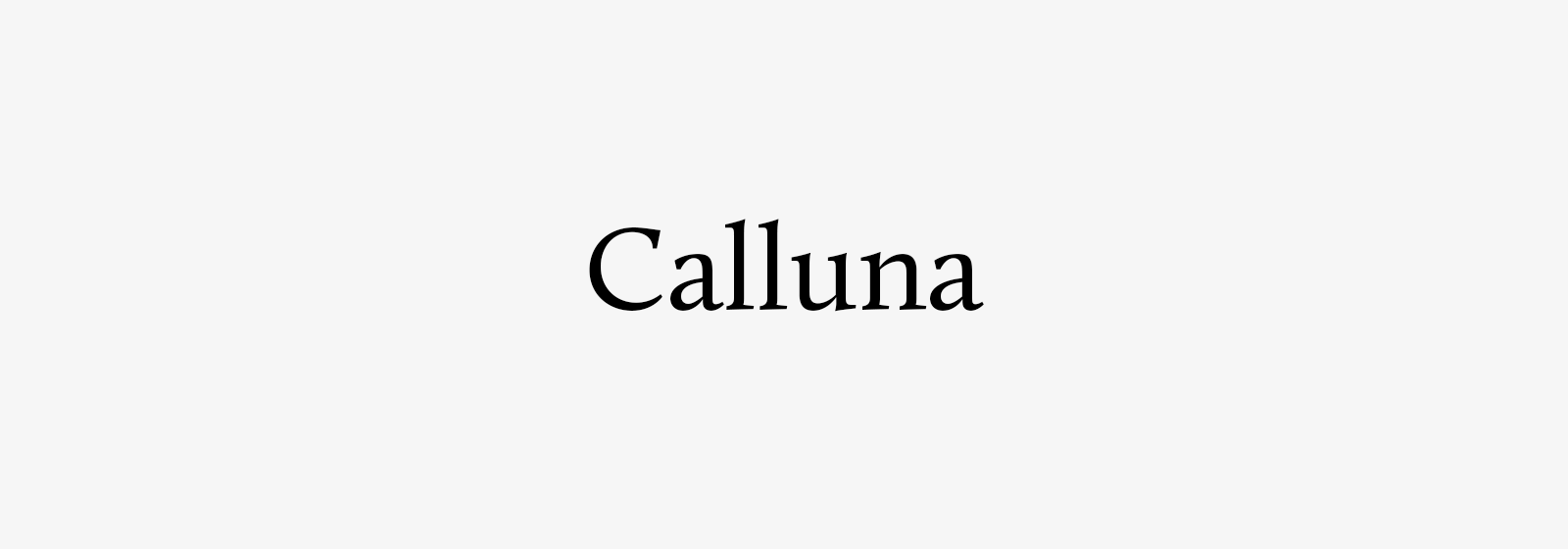
Calluna is an elegant serif typeface with a warm, modern look. Its balanced shapes and smooth curves make it ideal for branding, invitations, packaging, and promotional designs. The font includes uppercase and lowercase letters, numbers, punctuation, and multilingual symbols, giving designers flexibility in every project. Calluna brings a professional yet soft touch to both print and digital work.